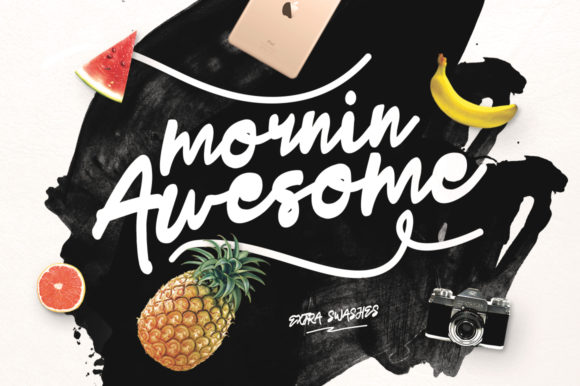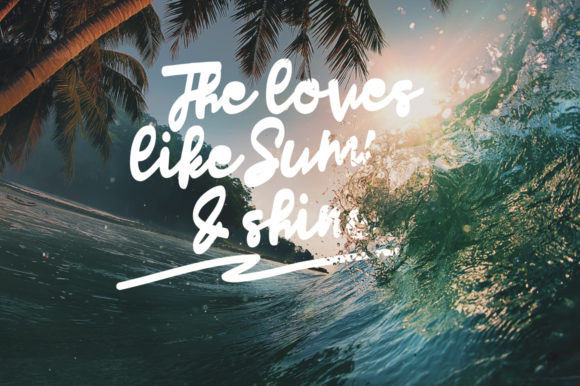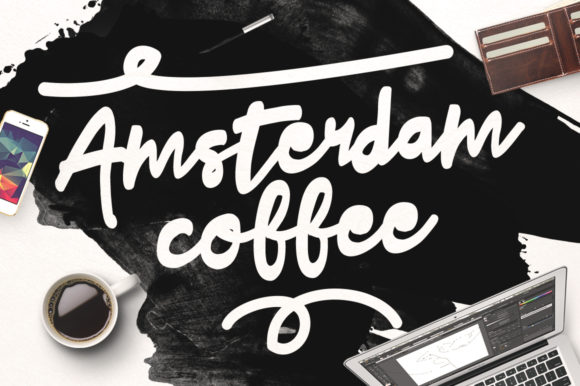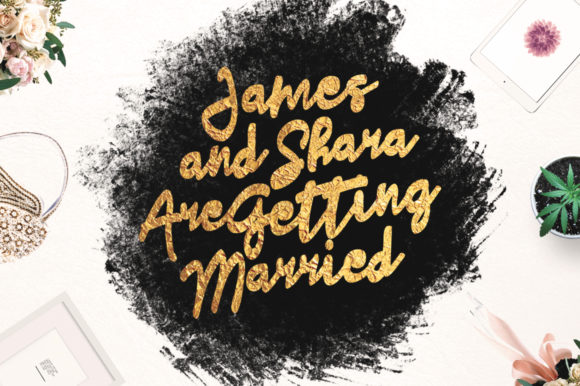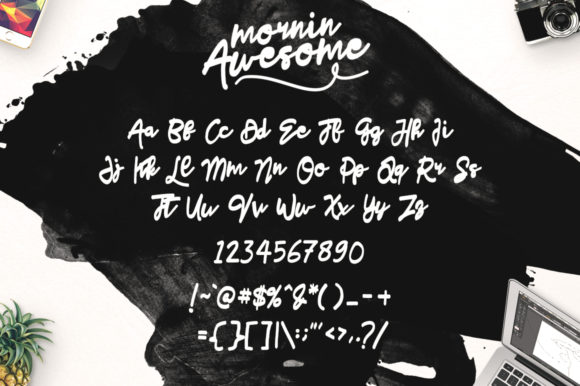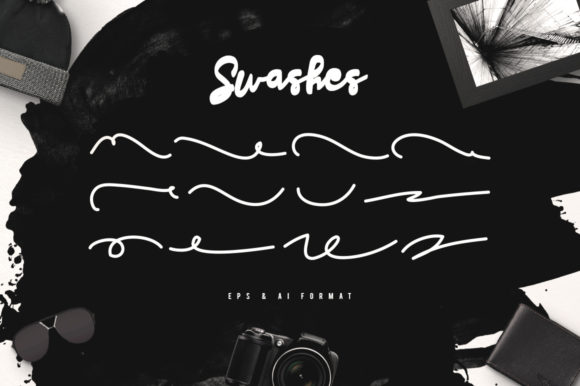
HomeScript FontsMornin Awesome Font Script Fonts Mornin Awesome Font FacebookXPinterestWhatsApp Mornin Awesome Font Poster 2 Mornin Awesome Font Poster 3 Mornin Awesome Font Poster 4 Mornin Awesome Font Poster 5 Mornin Awesome Font Poster 6 About Mornin Awesome Font Mornin Awesome is a cheerful and bold script that will give your designs and happy and authentic feel! DOWNLOAD NOW People also explored Rayden Stone Font Tecnica Slab Stencil Family Font Monatta Font Peachy Lady Font Rushtard Brush Font Daniella Font Closterian Font Rainbow Butterfly Font Christmas Cute Font 342 0 TagsMornin Awesome Font Previous articleNotalistic FontNext articleHey Keysha Font LEAVE A REPLY Cancel reply Comment: Please enter your comment! Name:* Please enter your name here Email:* You have entered an incorrect email address! Please enter your email address here Website: Save my name, email, and website in this browser for the next time I comment. Personal Use Free Where the Cookies Personal Use Free Read more about this font Monofonto Personal Use Free Read more about this font Vanilla Whale Personal Use Free Read more about this font Konexio Personal Use Free Read more about this font BLOG Using Fonts in Digital Marketing: Tips to Strengthen Your Brand Identity In the realm of digital marketing, every visual element plays a crucial role in shaping a brand's identity, and fonts are no exception. The... Top 10 Handwritten Fonts That Elevate Your Designs Top 7 Google Fonts Alternatives for Faster and Privacy-Friendly Web Design (2025) Free vs Paid Fonts: Why Investing in Premium Fonts Is Worth It